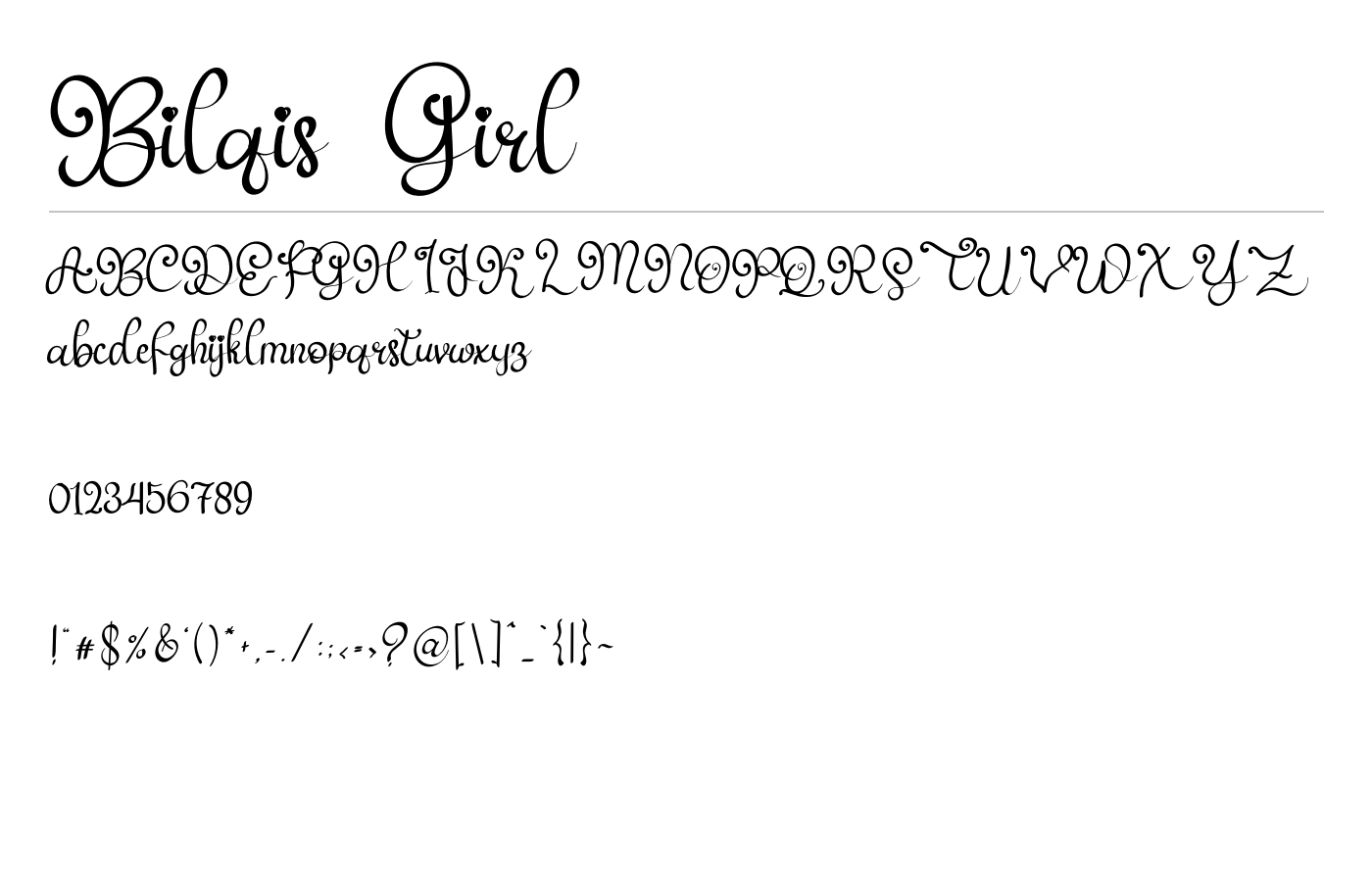
Bilqis Girl is a whimsical, decorative script font that features delicate, flowing lines with charming heart-shaped details, giving it a playful and feminine personality. Its light weight and graceful letterforms make it ideal for romantic or whimsical branding, invitations, and creative projects where a touch of elegance and fun is desired. This font works best for headlines, logos, and designs that need a distinctive, handcrafted feel.
Bilqis Girl Font